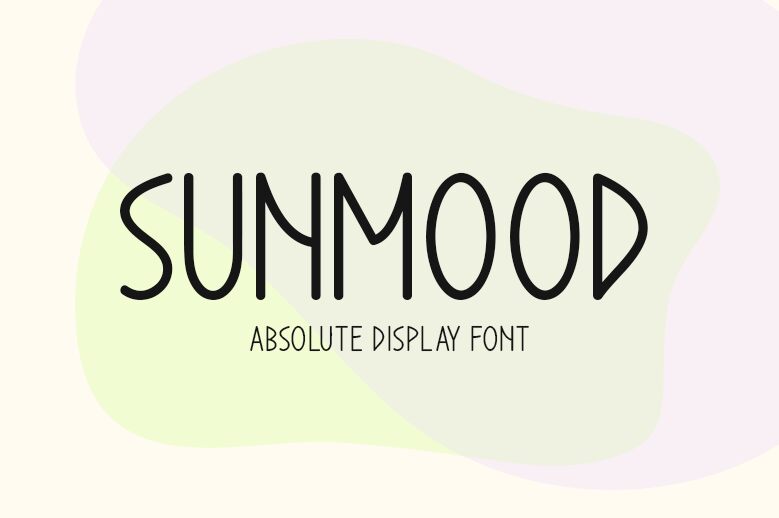
Sunmood
Sunmood font by Md Shohail Bhuian is a free handwritten font with a charming combination of rounded, smooth characters. The condensed style of the font gives it an elegant modernist look and feel created by gentle lines. Additionally, the clean-looking font features an approachable and friendly appearance.
Use Sunmood in posters, packaging designs, greeting cards, motivational quotes, titles, blog headers, magazine covers, logos and branding projects. Both personal and business projects can benefit from having this lovely style as part of their visuals.